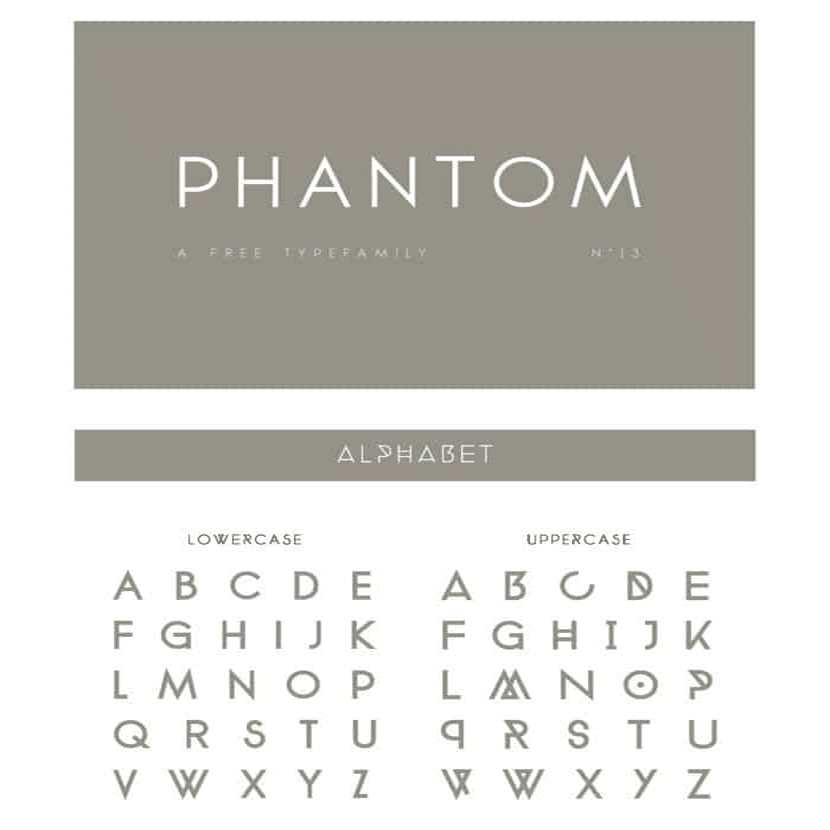
Phantom Font Family is an incredibly unique and modern display font. Phantom Font Family celebrates abstract shapes in all their eclectic brilliance.
Add this font to your creative ideas and notice how it will make them stand out! It’s an free uppercase display type family with 9 free weights.